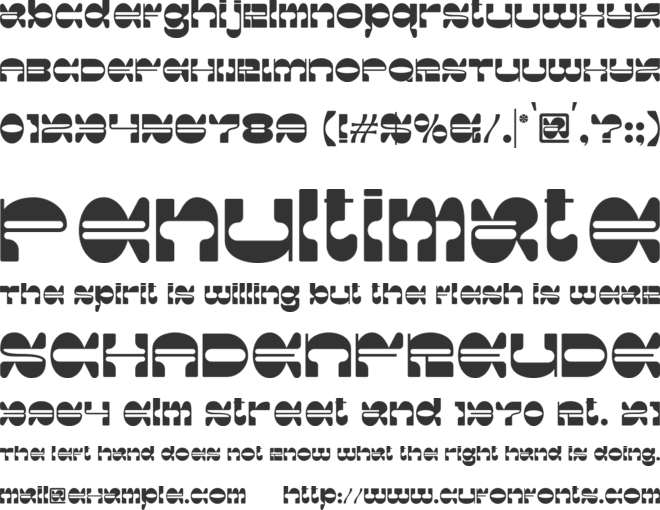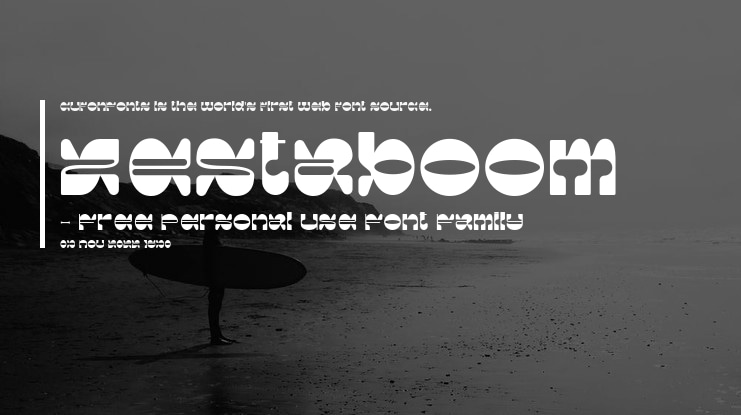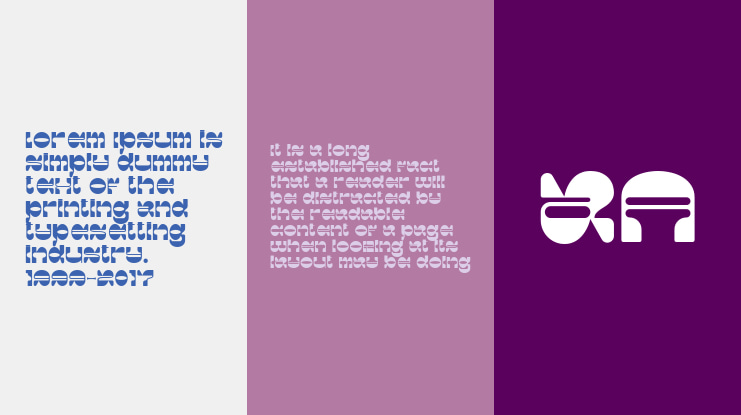
Zestaboom - Free Personal Use Font
Zestaboom – Bold Retro Font with a Twist
Zestaboom is a bold and vibrant retro font with a unique reverse contrast style that makes it stand out from the crowd. Inspired by classic 70s design and vintage lettering, this retro font brings a fun, funky energy to any project. Its quirky shapes and strong presence make it perfect for retro-themed posters, logos, album covers, packaging, and more. Whether you're going for a groovy vibe or a playful vintage look, Zestaboom is the retro font that brings your design to life with boldness and flair.